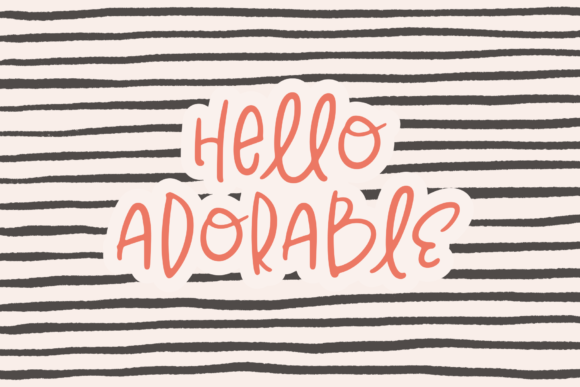
Hello Adorable: The Playful Font Shaping Modern Design and Communication
In a world where digital communication is increasingly visual, the choice of font has become more than just an aesthetic decisionāit's a strategic one. Hello Adorable is a handwritten font that has been making waves among professionals, creators, and marketers alike. With its cute and playful design, this typeface offers a unique blend of charm and functionality that resonates with todayās evolving creative landscape.
What Is Hello Adorable?
Hello Adorable is a display typeface that captures the essence of handwritten expression. It features mixed characters with smooth edges, creating a sense of warmth and authenticity. Designed to feel personal and approachable, it stands out for its fun and carefree attitude. This font is not just about looking goodāit's about feeling right.
Unlike traditional fonts that are often rigid and formal, Hello Adorable brings a sense of spontaneity to text. Its character shapes are reminiscent of real handwriting, making it ideal for headlines, social media posts, quotes, and other forms of content that benefit from a human touch.
The Rise of Handwritten Fonts in Design
The growing popularity of Hello Adorable reflects a broader trend in design and communication. As audiences become more visually savvy, they are drawn to content that feels authentic and relatable. Handwritten fonts like Hello Adorable tap into this desire by offering a more personal connection between the creator and the viewer.
This shift is particularly evident in industries such as marketing, branding, and social media, where emotional engagement plays a crucial role. In a competitive marketplace, standing out requires more than just compelling messagesāit requires a memorable visual identity. Hello Adorable helps achieve this by adding a layer of personality to any project.
Why Professionals Are Turning to Hello Adorable
Professionals across various fields are recognizing the value of Hello Adorable in their work. Marketers use it to create eye-catching headlines that evoke emotion. Freelancers incorporate it into their portfolios to add a distinctive flair. Entrepreneurs leverage it in branding efforts to convey a sense of approachability and innovation.
One of the key reasons people are paying attention to Hello Adorable is its versatility. It works well in both digital and print formats, making it suitable for a wide range of applicationsāfrom website headers to product packaging. Its playful yet professional look allows it to fit seamlessly into modern design trends without compromising on clarity or legibility.
Connecting with Changing Consumer Preferences
Consumer preferences are shifting toward experiences that feel genuine and meaningful. In this context, the use of Hello Adorable aligns with the demand for authenticity in branding and communication. People are no longer satisfied with generic, one-size-fits-all approachesāthey want to see the human side of businesses and creators.
By using Hello Adorable, brands can communicate in a way that feels more connected and less corporate. This is especially important in industries like fashion, lifestyle, and entertainment, where emotional resonance is key. The fontās ability to convey warmth and playfulness makes it an excellent choice for campaigns targeting younger, more digitally engaged audiences.
Practical Examples of Hello Adorable in Action
Consider a social media influencer who uses Hello Adorable in their captions and post titles. The font adds a sense of friendliness and approachability, which helps build a stronger connection with followers. Similarly, a startup might use it in their landing page headlines to create a welcoming atmosphere that encourages user interaction.
In the realm of content creation, Hello Adorable can be used to enhance blog posts, newsletters, and even e-books. Its readability ensures that the message remains clear while still maintaining a unique visual appeal. For instance, a wellness brand could use the font in promotional materials to reflect a relaxed and positive lifestyle.
The Role of Technology in Font Adoption
Advancements in technology have made it easier than ever to access and implement custom fonts like Hello Adorable. With tools like Google Fonts and font libraries integrated into web development platforms, designers can easily incorporate the font into websites, apps, and other digital projects.
Moreover, the rise of AI-driven design tools has further amplified the importance of choosing the right font. These tools analyze user preferences and suggest font pairings that align with the desired tone and style. Hello Adorable often appears in these recommendations due to its adaptability and expressive nature.
How Hello Adorable Fits Into Creative Workflows
Creative professionals are constantly seeking ways to streamline their workflows while maintaining quality. Hello Adorable fits perfectly into this dynamic by offering a font that is both expressive and easy to use. Its clean lines and consistent spacing make it suitable for quick edits and last-minute changes without sacrificing visual impact.
In conclusion, Hello Adorable is more than just a fontāit's a reflection of the changing needs and preferences of todayās audience. By incorporating it into your work, youāre not only enhancing your visual communication but also aligning yourself with the future of design and marketing.